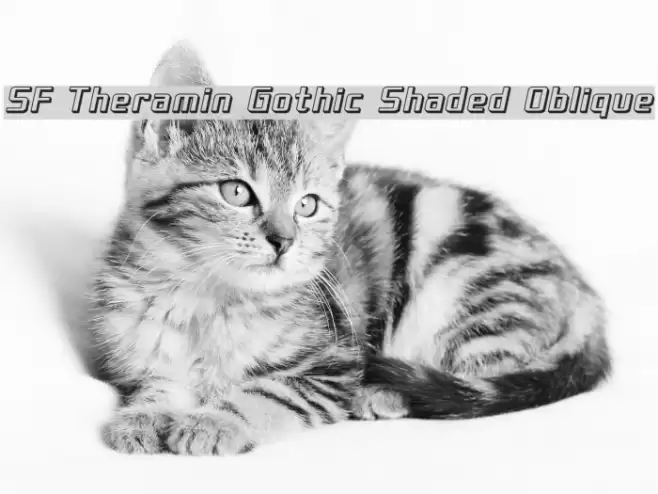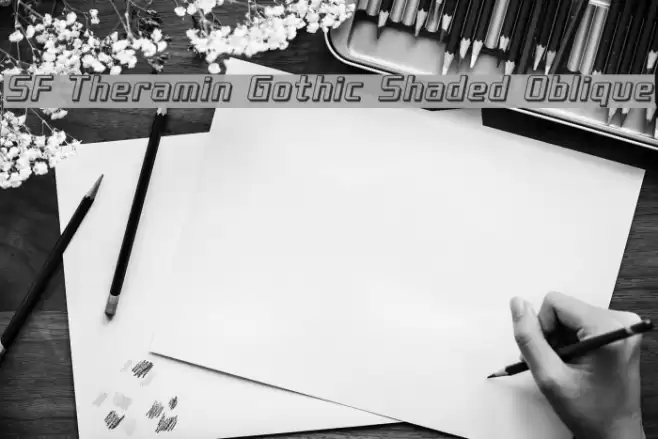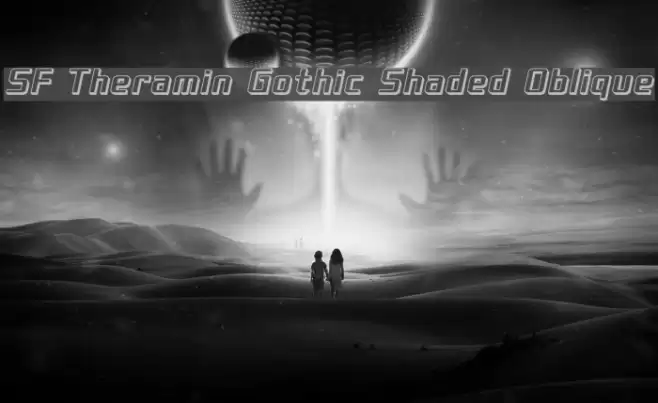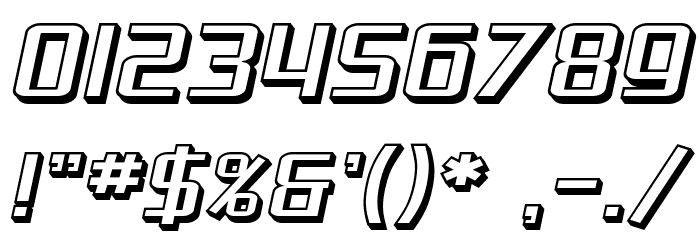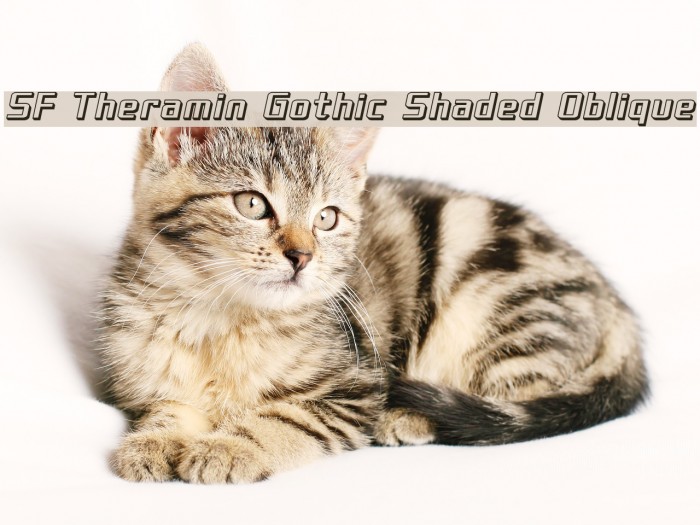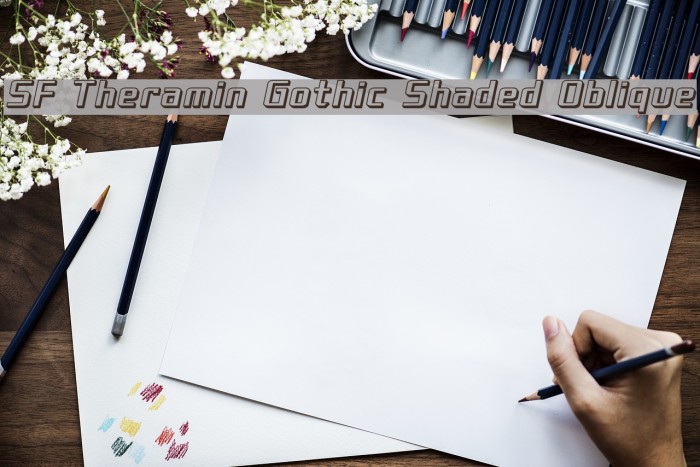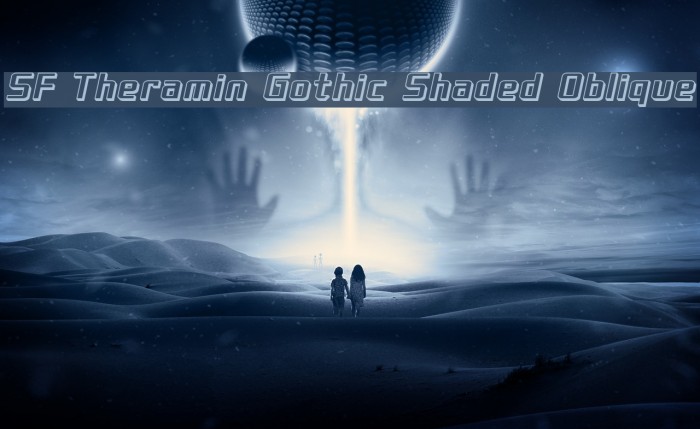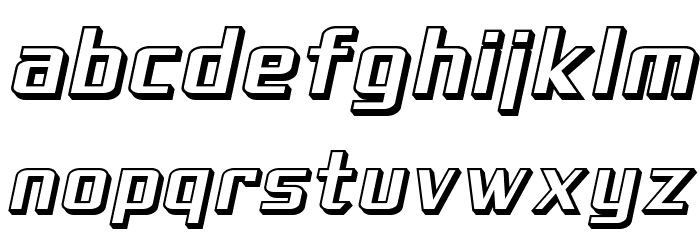
SF Theramin Gothic Shaded Oblique Font
SF Theramin Gothic Shaded Oblique Description
This font features a bold, geometric design with a distinct three-dimensional effect created by its shaded oblique style. The characters are outlined, giving them a futuristic and dynamic appearance. The uppercase and lowercase letters maintain a consistent style, with sharp angles and clean lines that enhance readability. The numerals and special characters follow the same design principles, ensuring a cohesive look across all text elements. This font's unique style makes it stand out, offering a modern twist on traditional sans-serif fonts.
A bold, geometric font with a shaded oblique style and three-dimensional effect.
- Proposed Projects: Ideal for projects requiring a modern and dynamic look, such as tech branding, video game titles, or futuristic posters.